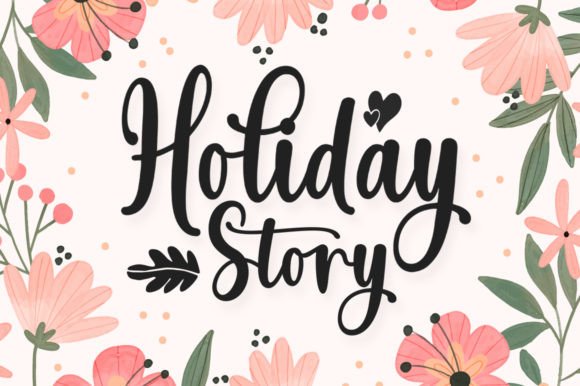
Experience the Enchantment of Holiday Story Duo: A Calligraphic Masterpiece for Timeless Designs
Journey into a world of elegance and charm with Holiday Story Duo, a captivating calligraphy font that exudes a touch of luxury in every letterform. This exquisite duo, combining a graceful sans serif and a mesmerizing script, will add a timeless touch to your design creations. Unleash your creativity and let your imagination flourish with Holiday Story Duo.
With Holiday Story Duo, your designs will radiate an aura of sophistication. Enchant your wedding invitations, imbue your branding with a touch of exclusivity, or craft stunning social media graphics that leave a lasting impression. This font duo is the perfect choice for adding a heartfelt and personal touch to any project.
Immerse yourself in the boundless possibilities of Holiday Story Duo. Its PUA encoding opens up a world of stunning glyphs and ligatures, allowing you to effortlessly add intricate details and flourishes to your designs. Experiment with different combinations to create unique and captivating typography that stands out from the crowd.
Indulge in the artistry of Holiday Story Duo and elevate your designs to new heights. Its versatility knows no bounds, making it the perfect companion for a wide range of projects. Whether you're a seasoned designer or just starting out, Holiday Story Duo will unleash your creativity and produce captivating results.
Seize the opportunity to own this exceptional font duo and unlock a world of endless possibilities. Let Holiday Story Duo be your muse, inspiring you to create designs that resonate with your audience and leave a lasting impression. Embrace the beauty of calligraphy and make your designs shine with Holiday Story Duo.